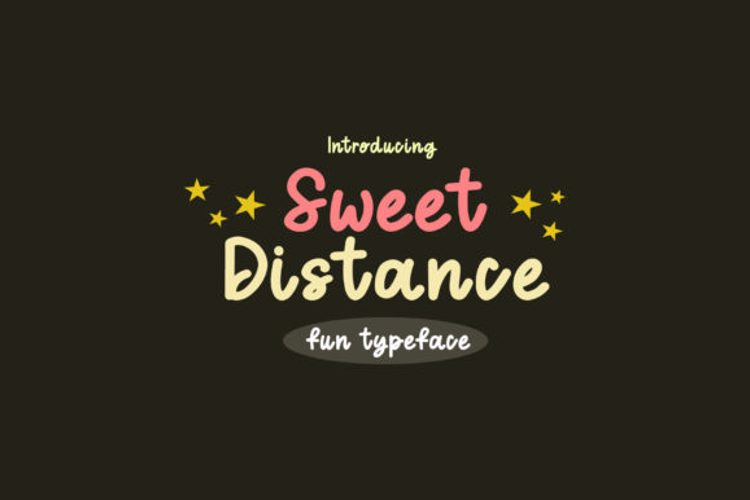
Sweet Distance Font
About Sweet Distance Font
Sweet Distance is a cute and simple lettered handwritten font that can be used for all chalkboard quotes or teaching material! Its authentic look will add a personal and realistic feel to your designs